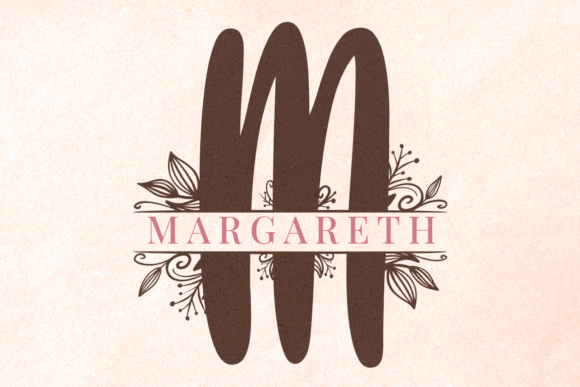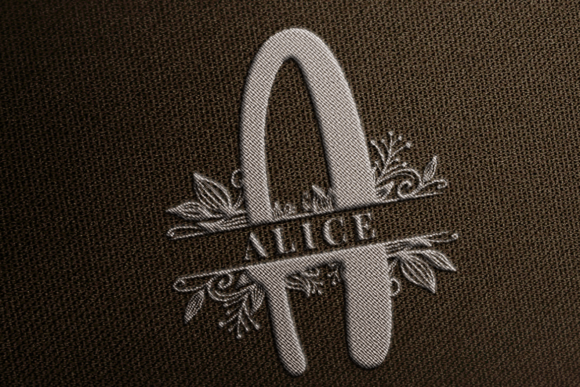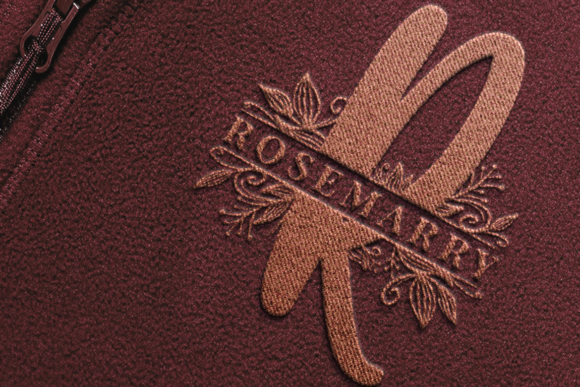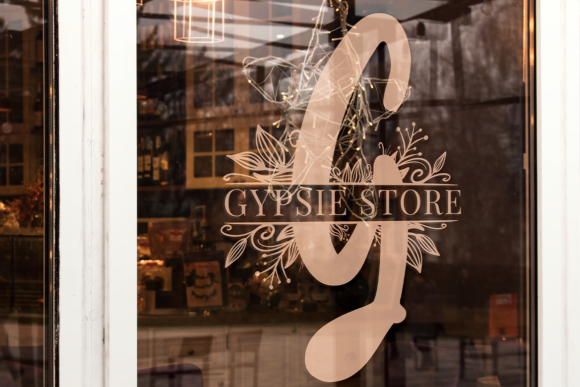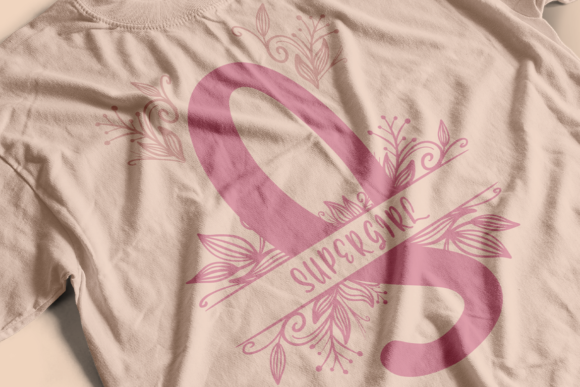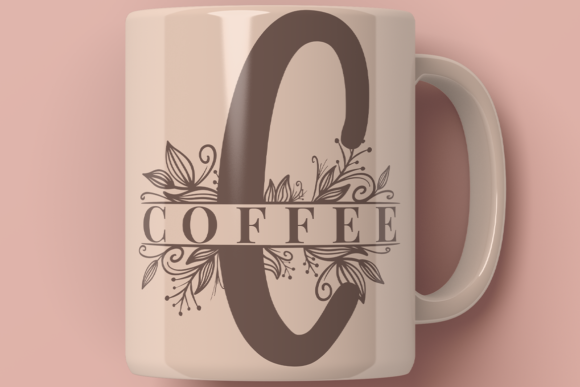
Eberline Monogram Font: Elevate Your Designs with Elegance
Are you a designer or crafter looking for a font that exudes elegance and sophistication? Look no further than the Eberline Monogram Font. This beautiful decorative font is perfect for creating stunning designs, both formal and informal. In this article, we’ll dive into the world of Eberline Monogram Font and explore its features, uses, and benefits.
What is Eberline Monogram Font?
Eberline Monogram Font is a sweet and elegant decorative font that is sure to capture your heart. Its authentic feel and classic design make it an excellent choice for a wide range of design projects. Whether you’re creating wedding invitations, branding materials, or social media graphics, Eberline Monogram Font is the perfect choice.
Key Features of Eberline Monogram Font
• Elegant Design: Eberline Monogram Font features a beautiful, cursive design that is both elegant and sophisticated.
• Authentic Feel: The font has an authentic feel that makes it perfect for creating traditional and vintage-inspired designs.
• Versatile: Eberline Monogram Font is versatile and can be used for both formal and informal designs.
• Easy to Read: The font is easy to read, making it perfect for body text and headlines.
Uses of Eberline Monogram Font
Eberline Monogram Font is a versatile font that can be used for a wide range of design projects, including:
• Wedding Invitations: Create beautiful wedding invitations, save-the-date cards, and thank-you notes with Eberline Monogram Font.
• Branding Materials: Use Eberline Monogram Font to create elegant branding materials, such as logos, business cards, and letterheads.
• Social Media Graphics: Create stunning social media graphics, such as Facebook posts, Instagram stories, and Pinterest pins, with Eberline Monogram Font.
• Stationery: Design beautiful stationery, such as notebooks, journals, and greeting cards, with Eberline Monogram Font.
Benefits of Using Eberline Monogram Font
Using Eberline Monogram Font offers several benefits, including:
• Unique and Elegant Designs: Eberline Monogram Font helps you create unique and elegant designs that stand out from the crowd.
• Time-Saving: The font is easy to use and saves you time, allowing you to focus on other aspects of your design project.
• Professional Look: Eberline Monogram Font gives your designs a professional look, making them perfect for business and personal projects.
Tips for Using Eberline Monogram Font
Here are some tips for using Eberline Monogram Font:
• Pair with Other Fonts: Pair Eberline Monogram Font with other fonts to create a unique and interesting design.
• Experiment with Colors: Experiment with different colors to find the perfect combination for your design.
• Use for Headlines and Body Text: Use Eberline Monogram Font for both headlines and body text to create a cohesive design.
Eberline Monogram Font is a beautiful and elegant decorative font that is perfect for creating stunning designs. Its authentic feel, classic design, and versatility make it an excellent choice for designers and crafters. With its ease of use and professional look, Eberline Monogram Font is a must-have font for any design project. So, fall in love with Eberline Monogram Font and elevate your designs with elegance.